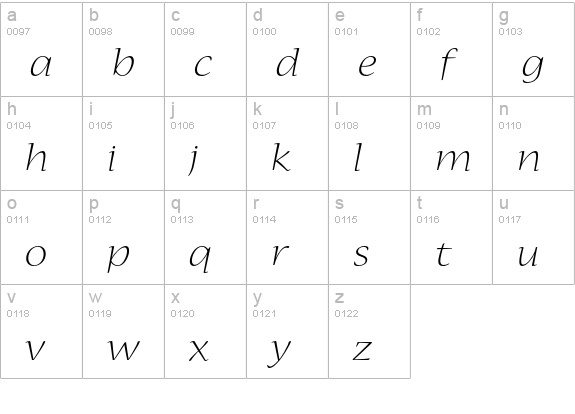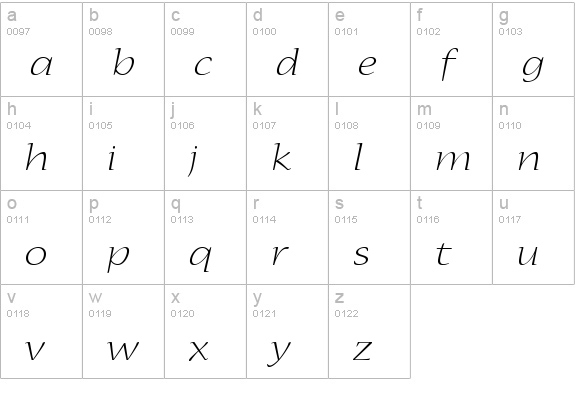
Nueva Std Light Extended Italic Font Details
Nueva Std Light Extended Italic is a refined, elegant, extended-width, italic variant in the Nueva typeface family \xE2\x80\x94 well suited to elegant body text, refined sub-headings, and luxury branding.
Nueva Std Light Extended Italic font exudes elegance and sophistication with its sleek and modern design. The delicate and slender letterforms bring a sense of grace and style to any project they adorn. This font is ideal for adding a touch of class to invitations, branding materials, and editorial designs. What makes Nueva Std Light Extended Italic font even more appealing is that it is freely available to download at FontsMarket.com. This means you can effortlessly enhance your creative projects with this stunning typeface without any cost. Embrace the beauty and versatility of Nueva Std Light Extended Italic font and elevate your designs with its timeless charm.